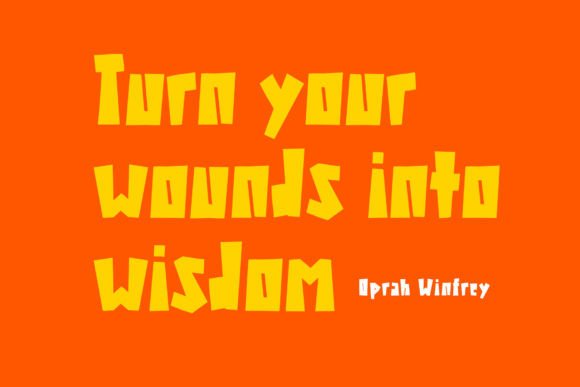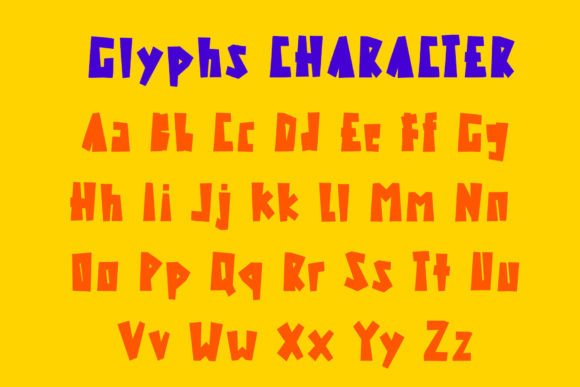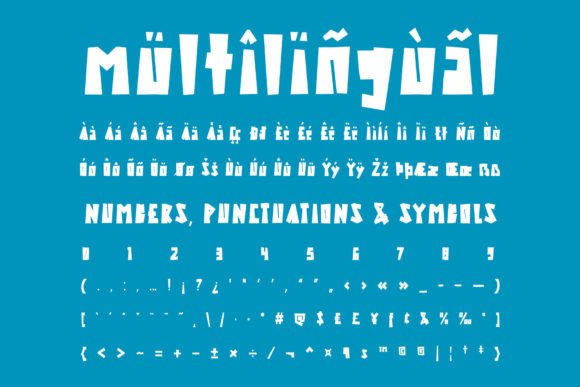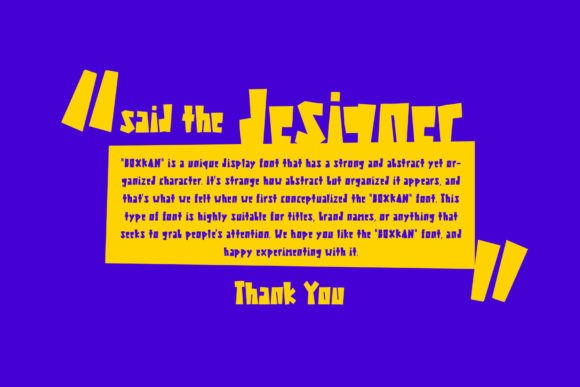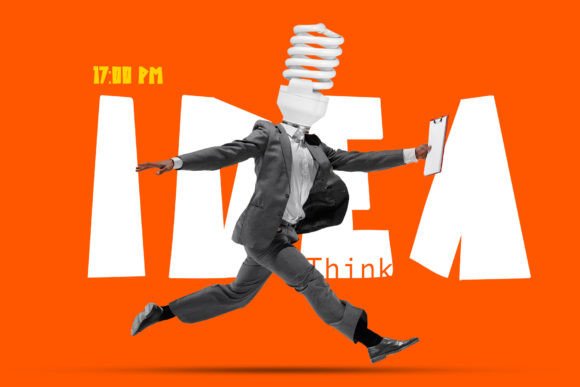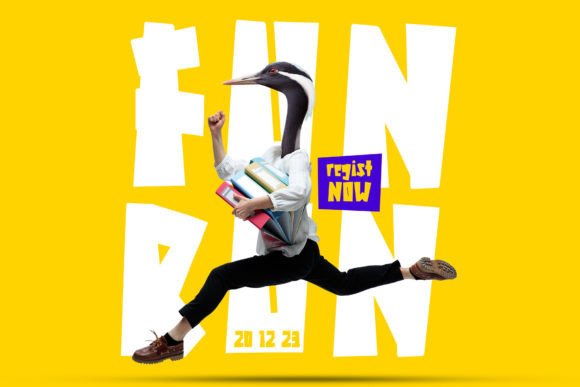
Unleashing the Power of BOXKAN: A Modern Display Font
Have you ever been in the middle of a design project, and suddenly, you’re stuck on finding the perfect font? I recall a recent experience where I was working on a branding project for a tech startup, and I just couldn’t find a font that conveyed the sense of innovation and boldness that the client wanted. That’s when I stumbled upon BOXKAN, a modern display font that instantly caught my attention with its strong and contemporary style.
The Birth of BOXKAN
BOXKAN was created with the goal of combining modern design elements with a prominent sense of power. The designers behind this font were inspired by the ever-evolving world of graphic design, where a strong and bold appearance is crucial in delivering an effective message. The result is a font that exudes confidence and assertiveness, making it perfect for design projects that require a daring impression.
A Closer Look at BOXKAN
BOXKAN boasts a sharp and geometric design, reflecting the firmness and assertiveness in each letter’s form. Every line and angle is carefully selected to provide strong visual power and an impressive impression. This font is designed to reinforce the messages you want to convey in your design, providing a bold and captivating look for readers.
What I Love About BOXKAN
- ✨ Versatility: BOXKAN is suitable for various design projects, from branding and advertising to packaging and digital media.
- ✅ Readability: Despite its bold and geometric design, BOXKAN remains highly readable, even at smaller font sizes.
- 💥 Impact: This font is sure to make a statement in any design project, grabbing the attention of your audience and leaving a lasting impression.
While BOXKAN is an excellent font, there are a few things to keep in mind:
- ⚠️ Legibility at small sizes: While BOXKAN is generally readable, it may not be the best choice for body text or small font sizes.
- 🤔 Overuse: Due to its bold and attention-grabbing nature, BOXKAN can be overwhelming if overused in a design.
FAQs
- Q: What is BOXKAN font?
- A: BOXKAN is a modern display font designed to bring power and boldness to your design projects.
- Q: What type of projects is BOXKAN suitable for?
- A: BOXKAN is suitable for various design projects, including branding, advertising, packaging, and digital media.
- Q: Can I use BOXKAN for body text?
- A: While BOXKAN is highly readable, it may not be the best choice for body text or small font sizes.